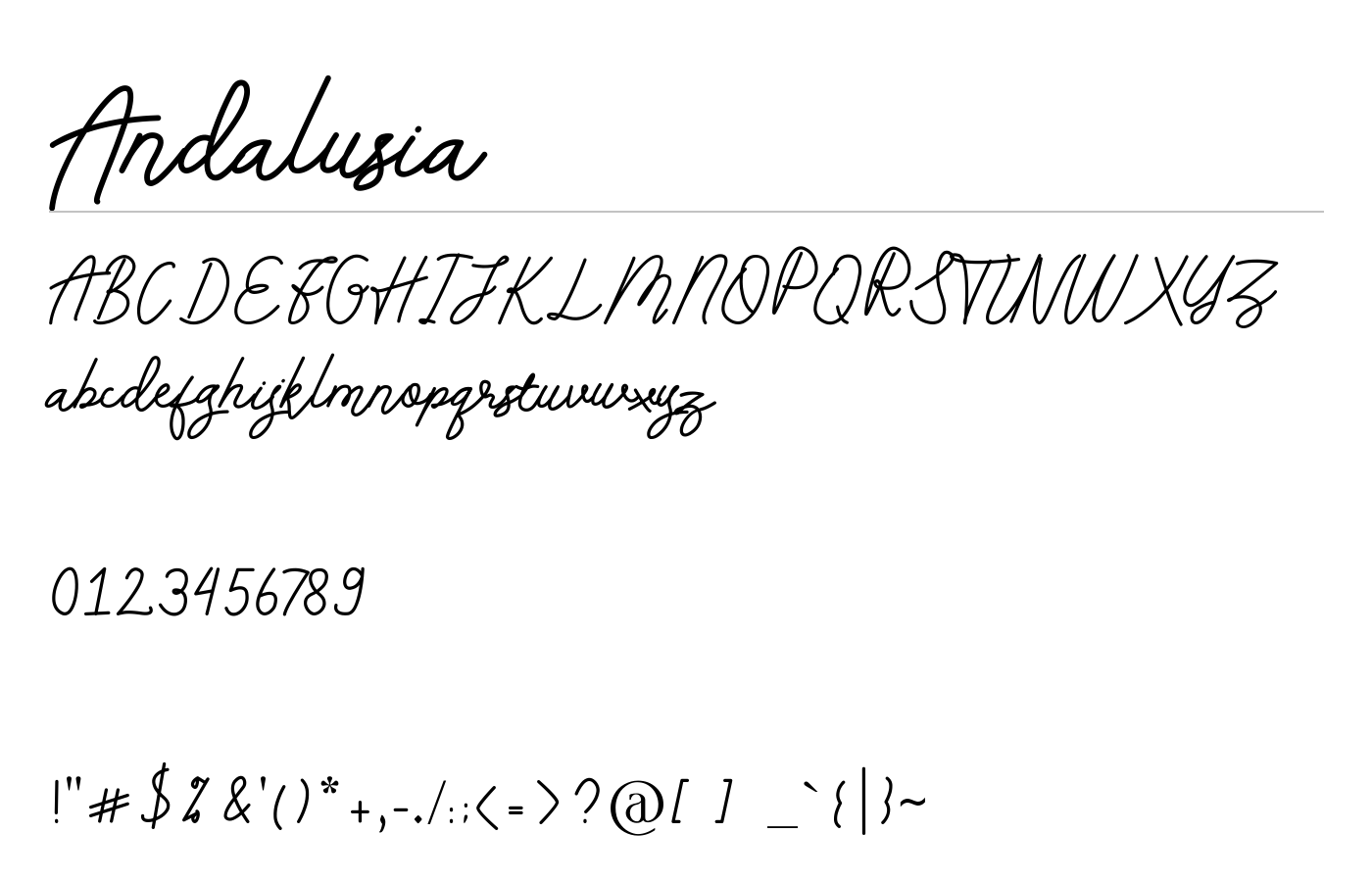
Andalusia is a delicate, handwritten script font with a light, elegant weight and a natural, flowing style that mimics casual penmanship. Its narrow width and smooth, organic strokes give it a personal and approachable feel, making it ideal for creative projects, invitations, and branding that seeks a touch of warmth and sophistication. This font works best for headlines and short texts where a friendly, stylish hand-drawn look is desired.